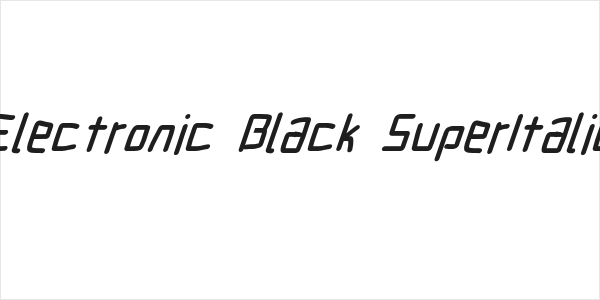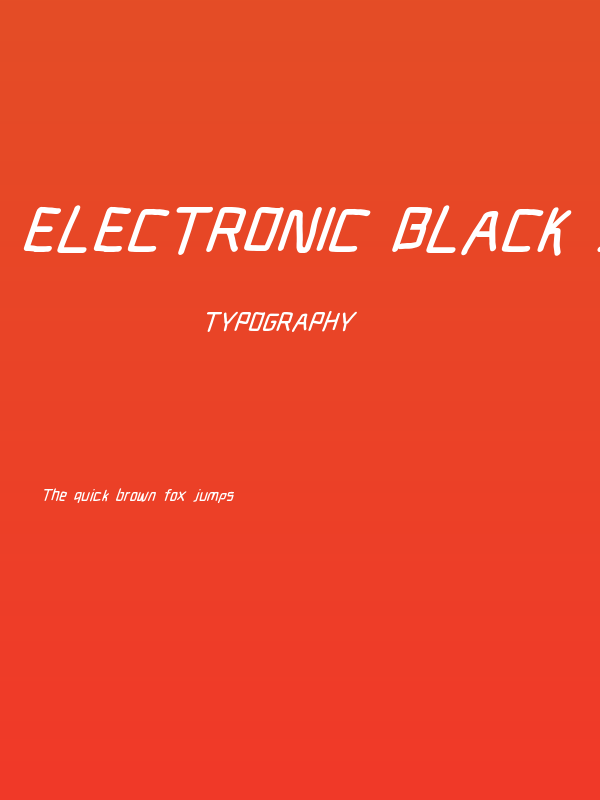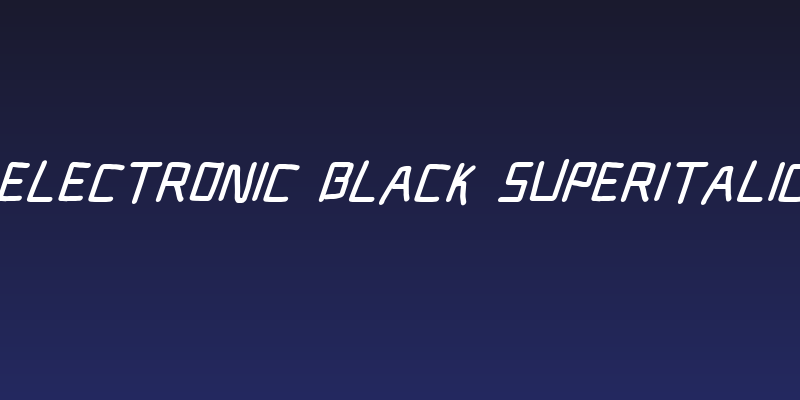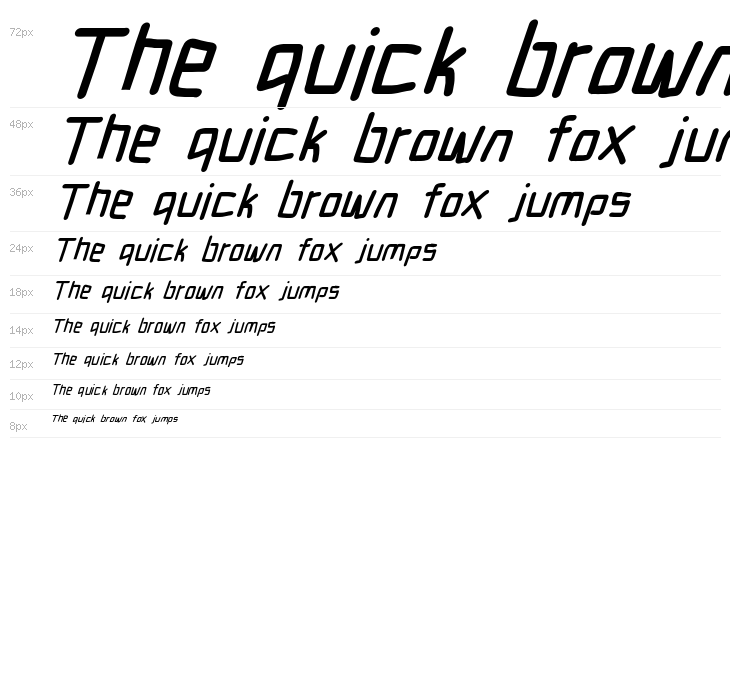
Electronic Black SuperItalic Font
Electronic Black SuperItalic Description
This font features a dynamic and futuristic style with a distinct italic slant, giving it a sense of motion and energy. The characters are bold and slightly condensed, with a uniform stroke width that maintains consistency across all glyphs. The design is clean and modern, with a geometric influence that adds a technical and digital feel. The uppercase and lowercase letters are well-balanced, and the numerals are clear and legible. Special characters are included, enhancing its versatility for various applications. The overall appearance is sleek and suitable for projects that require a contemporary and edgy look.
| Use Case | Headlines, Logos, Digital interfaces |
| Proposed Projects | Ideal for technology branding, video game titles, sci-fi posters, and digital interfaces. |